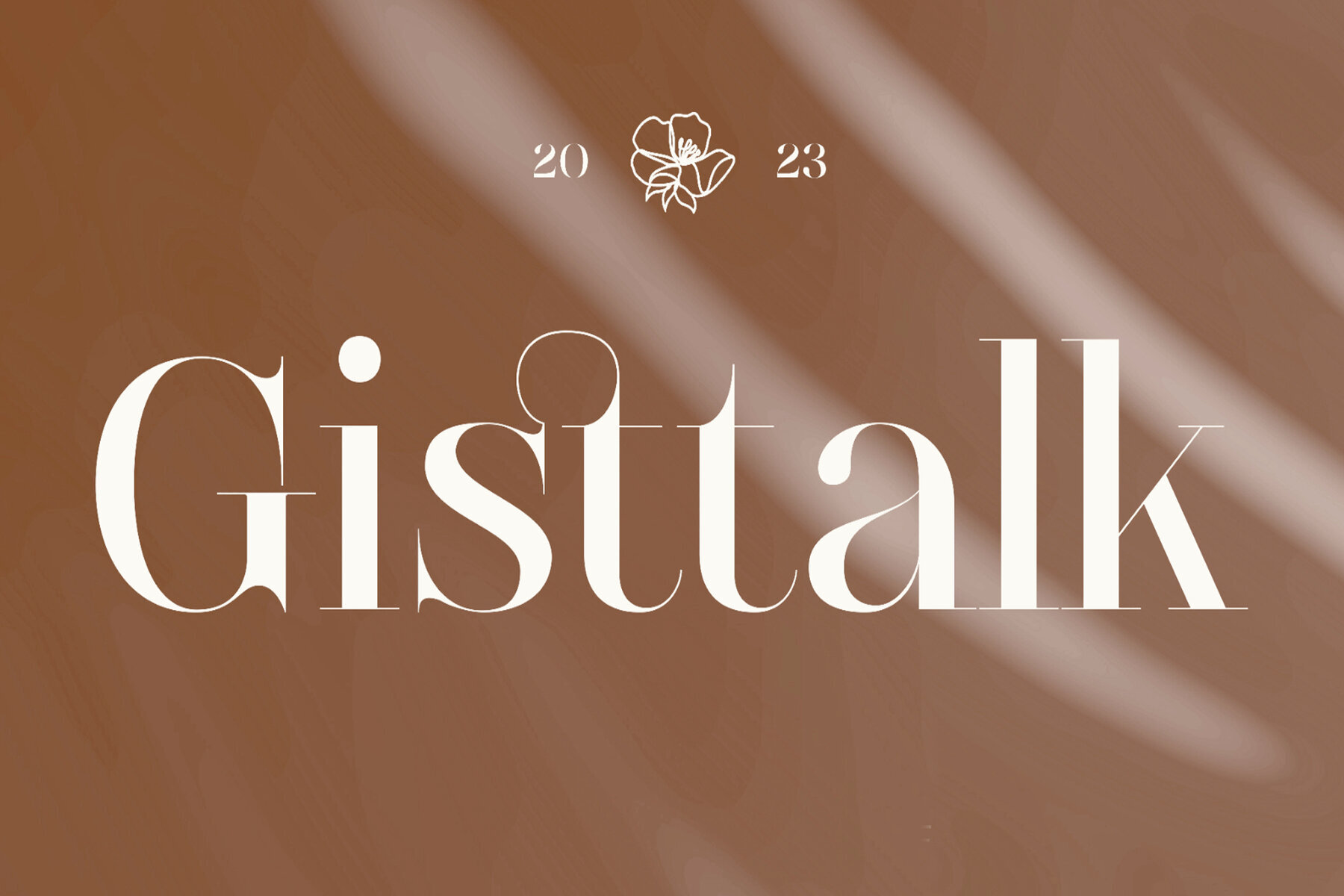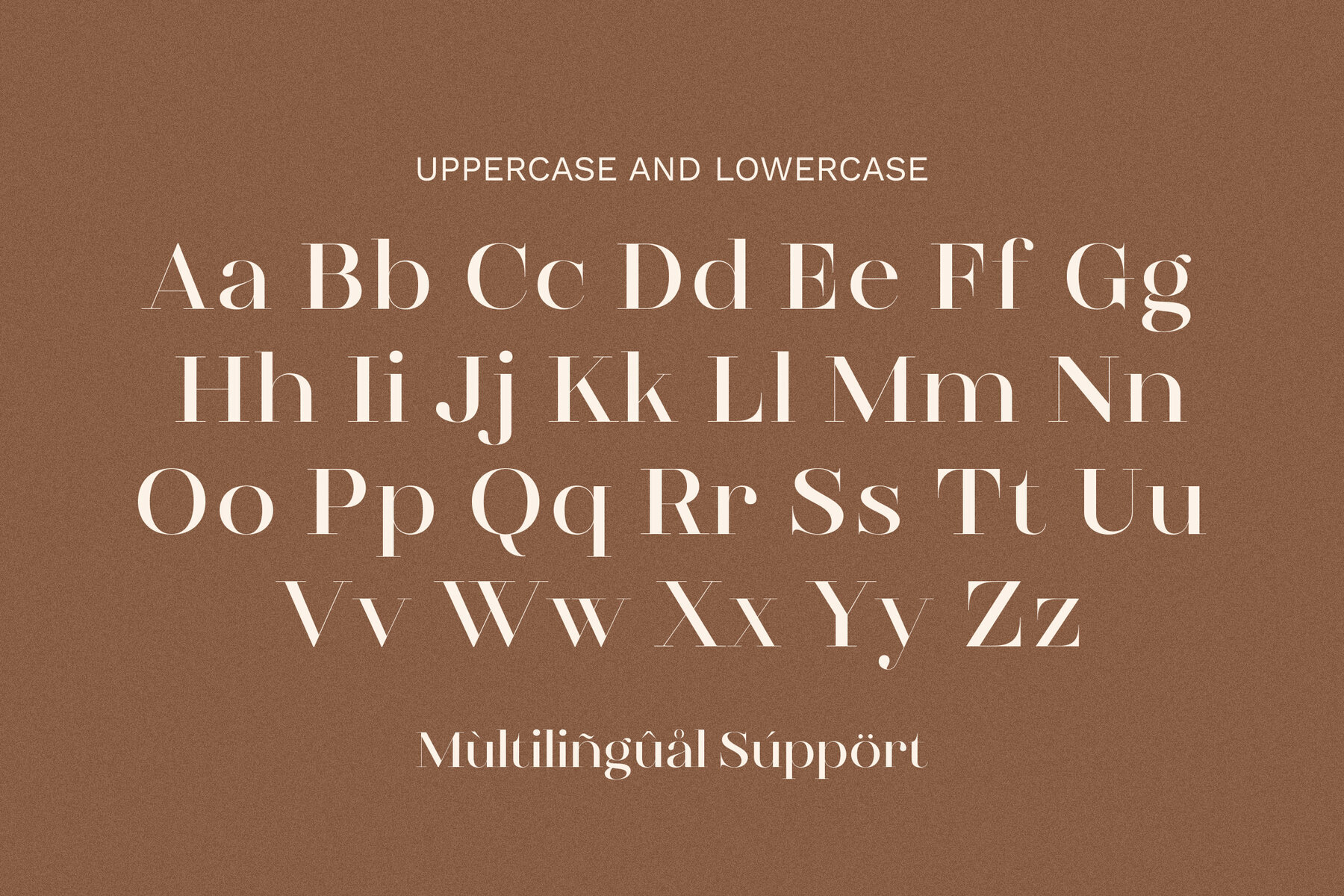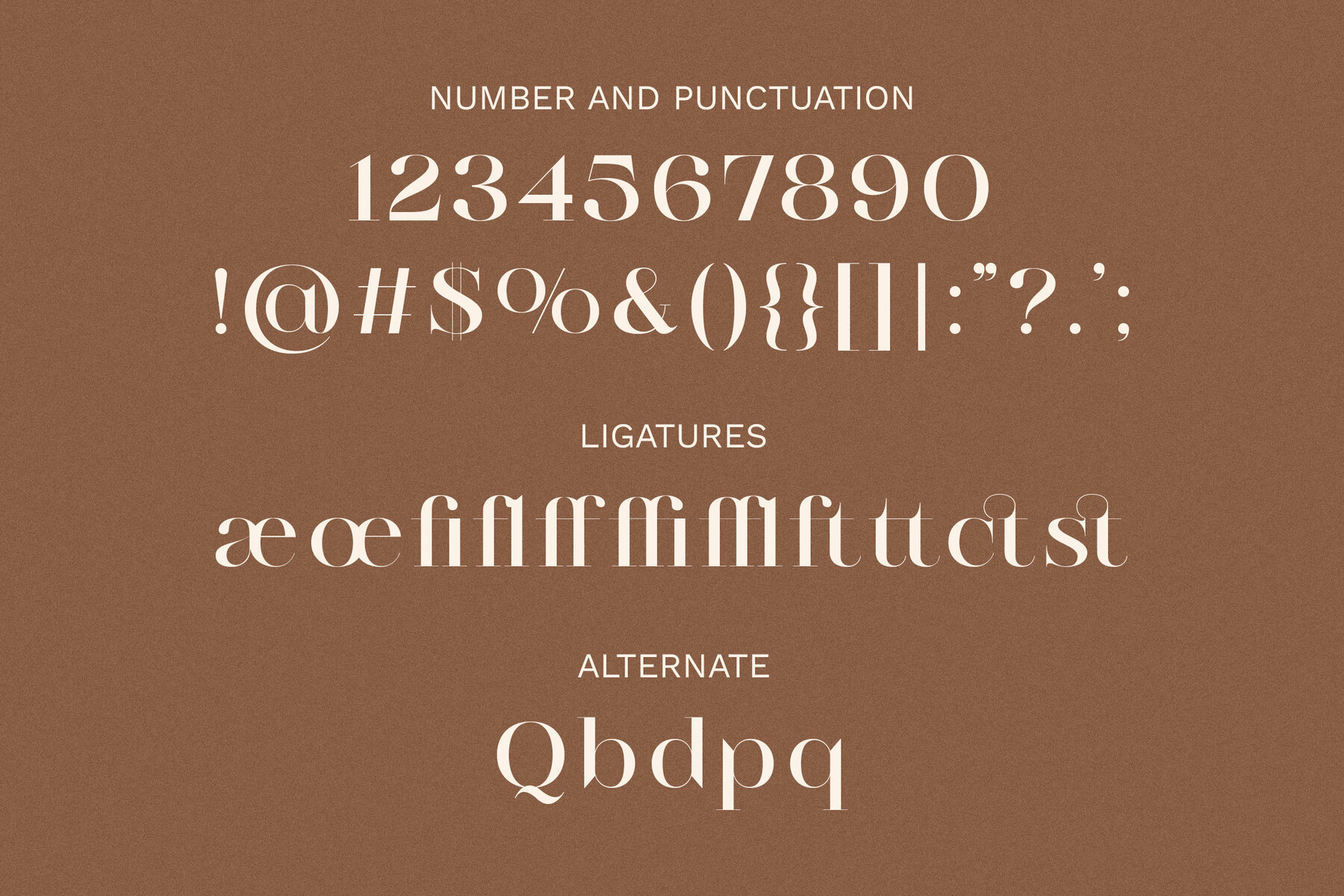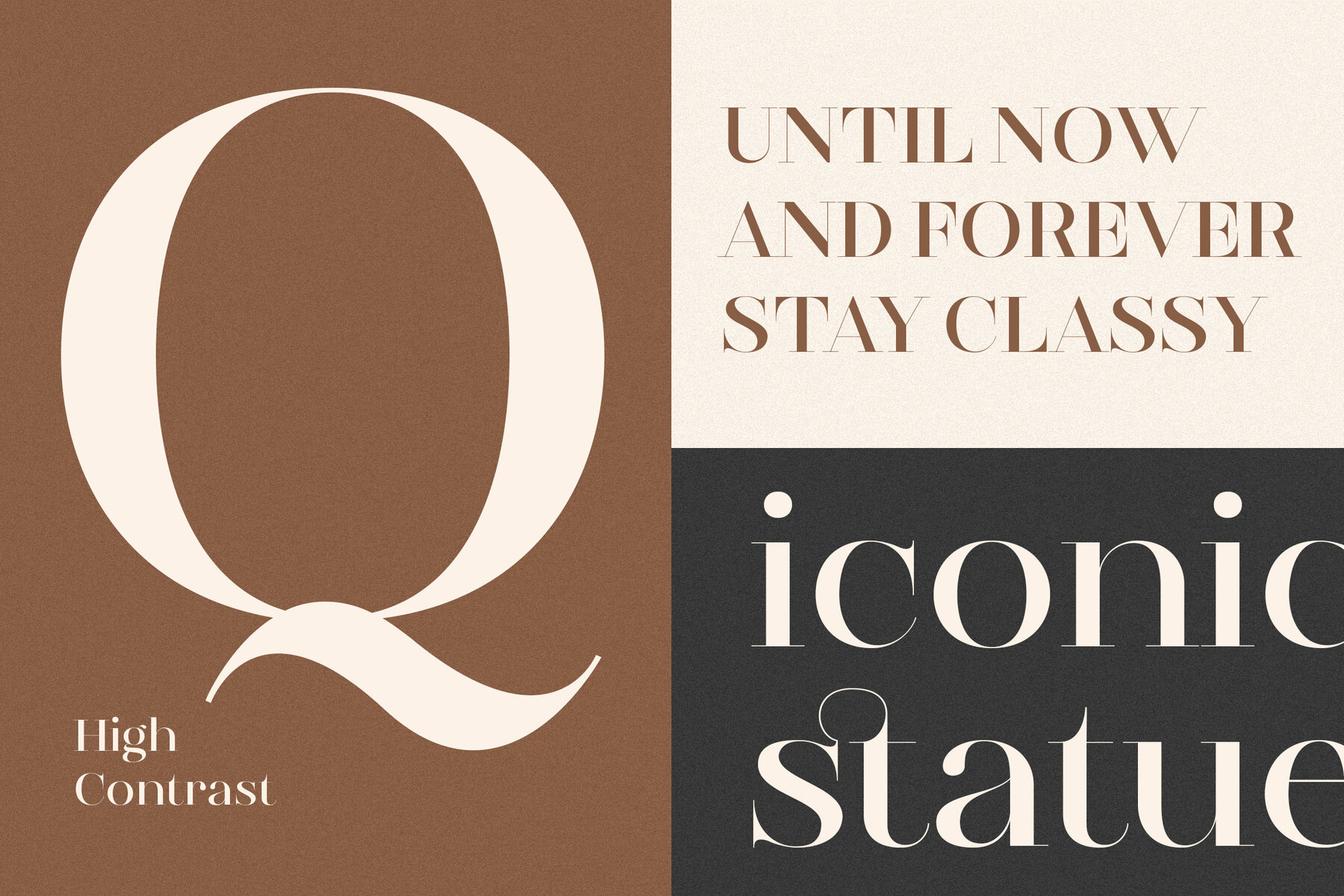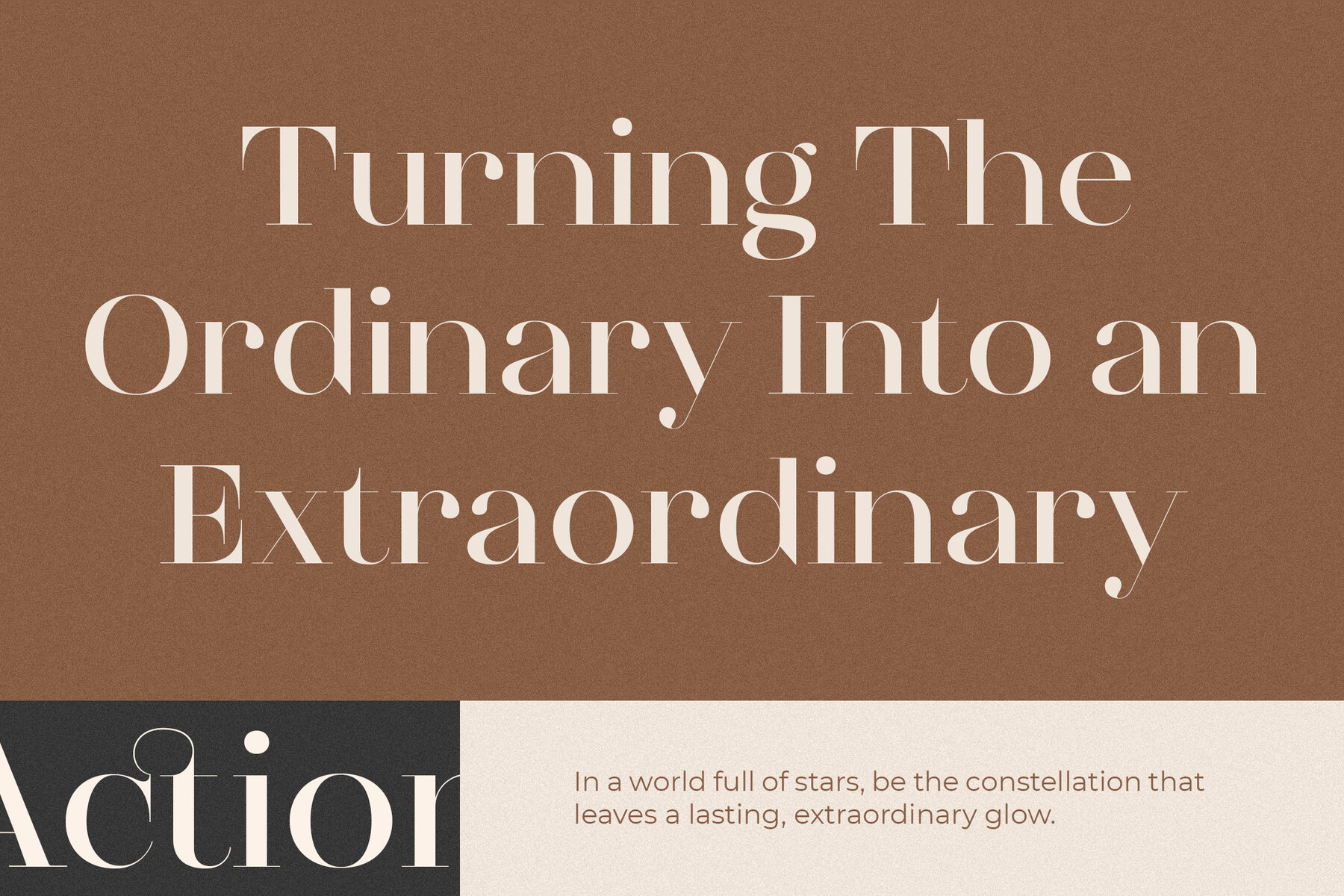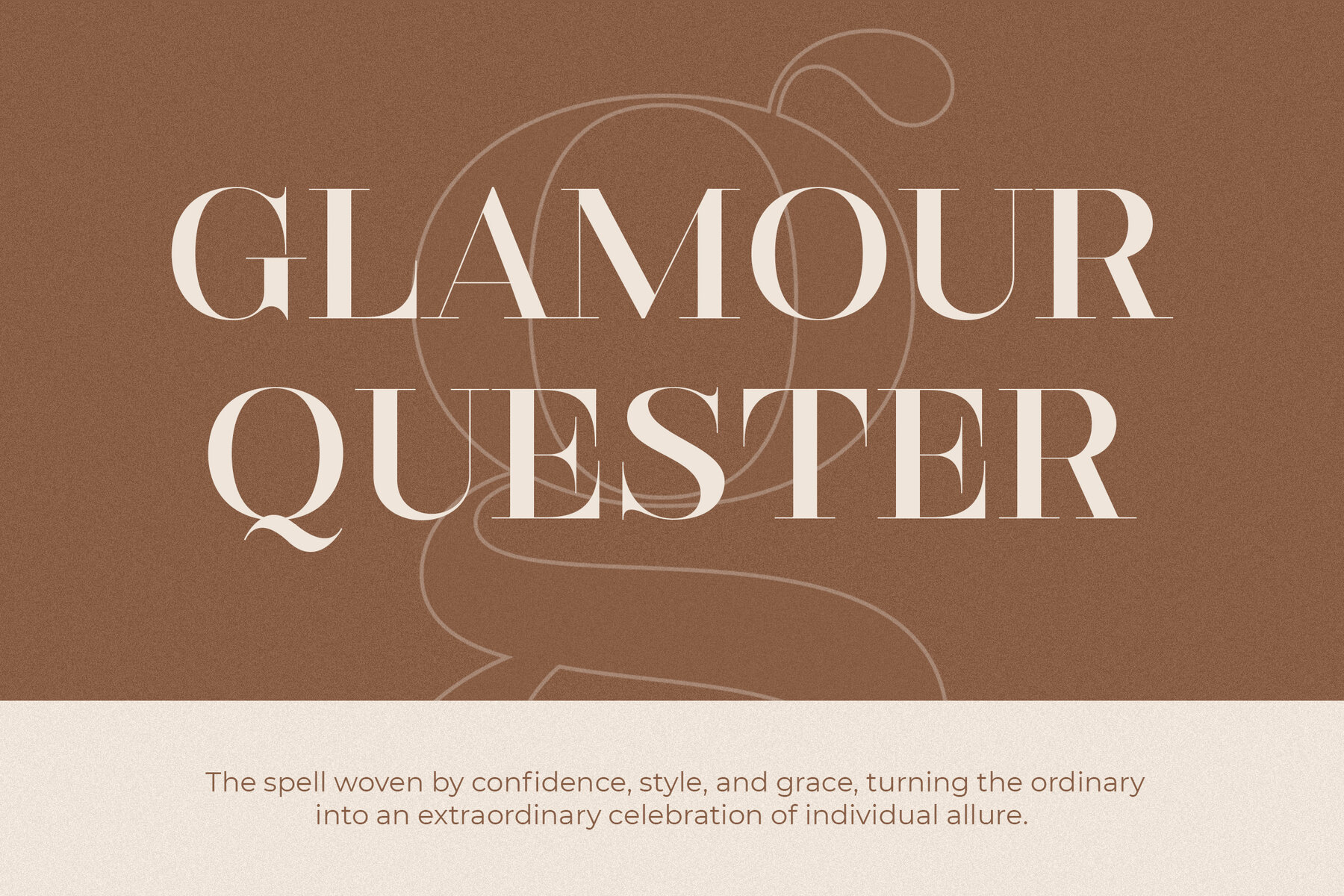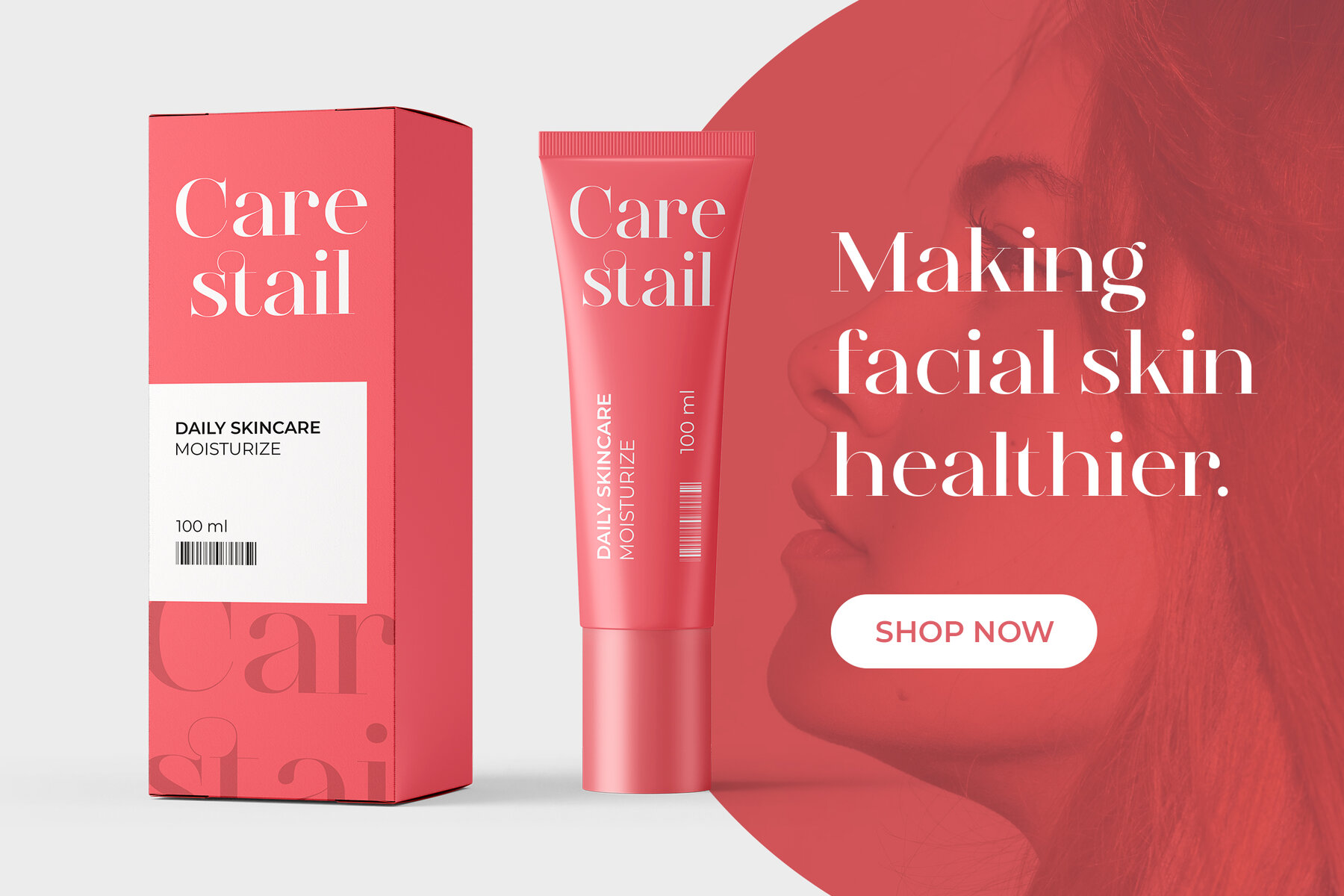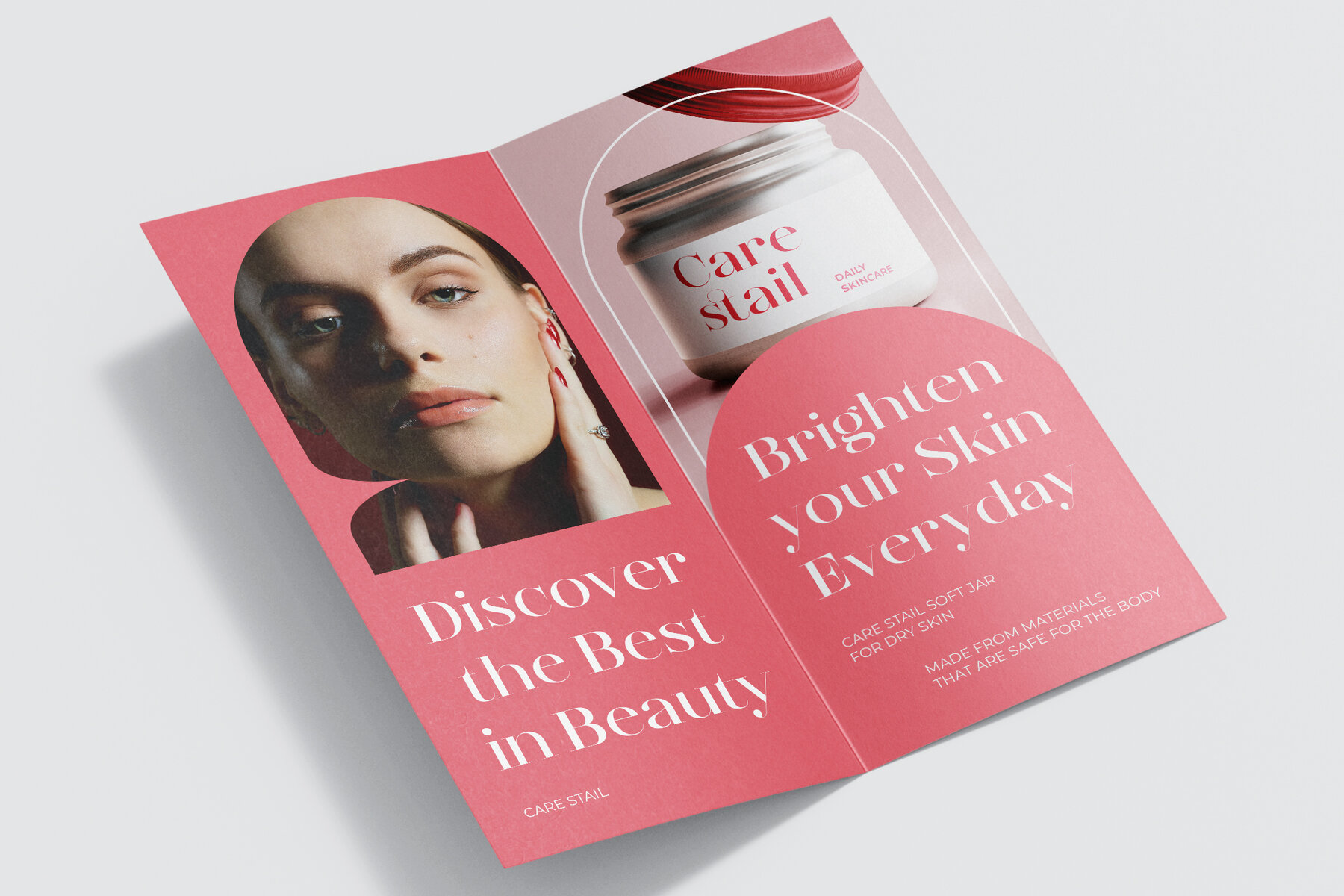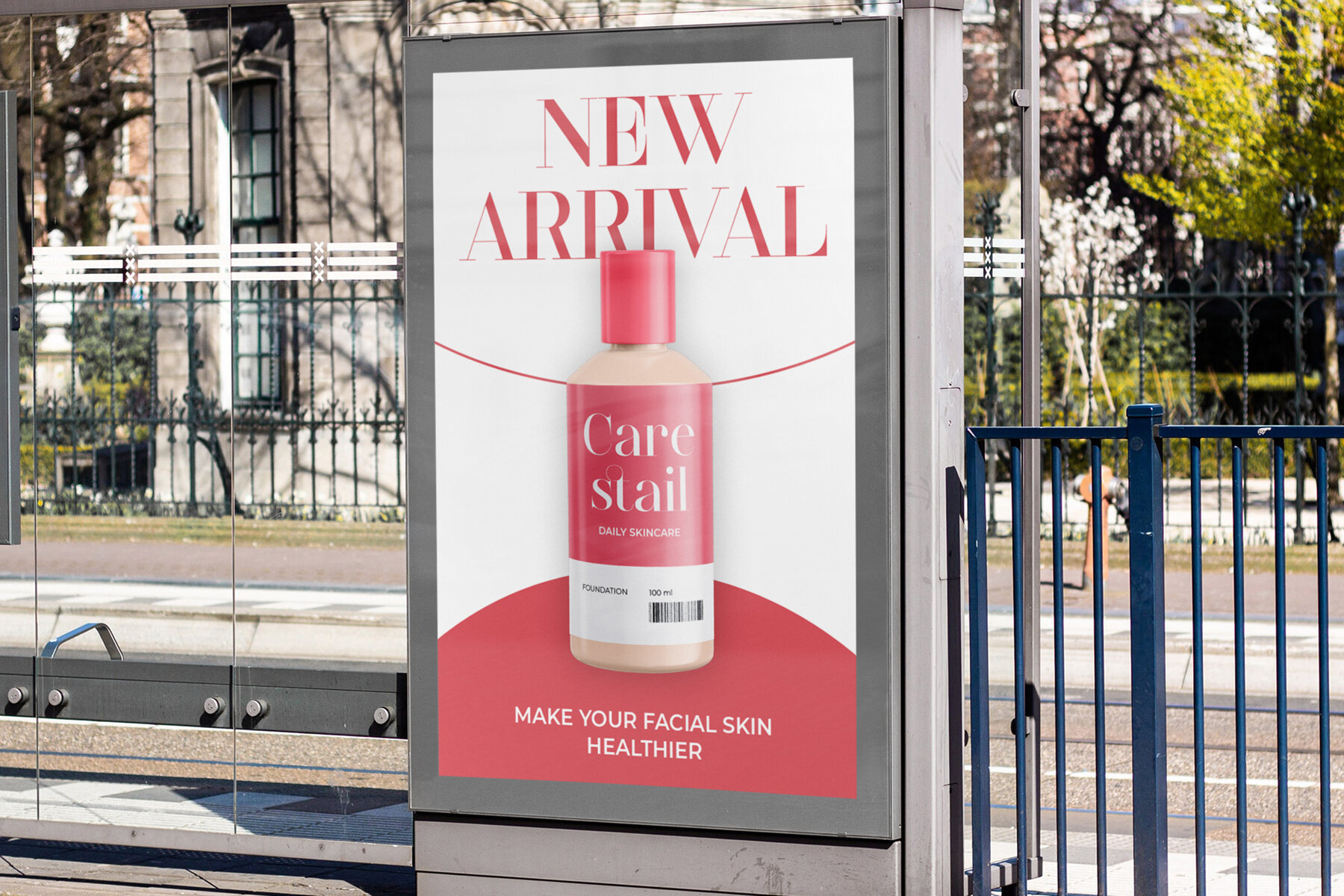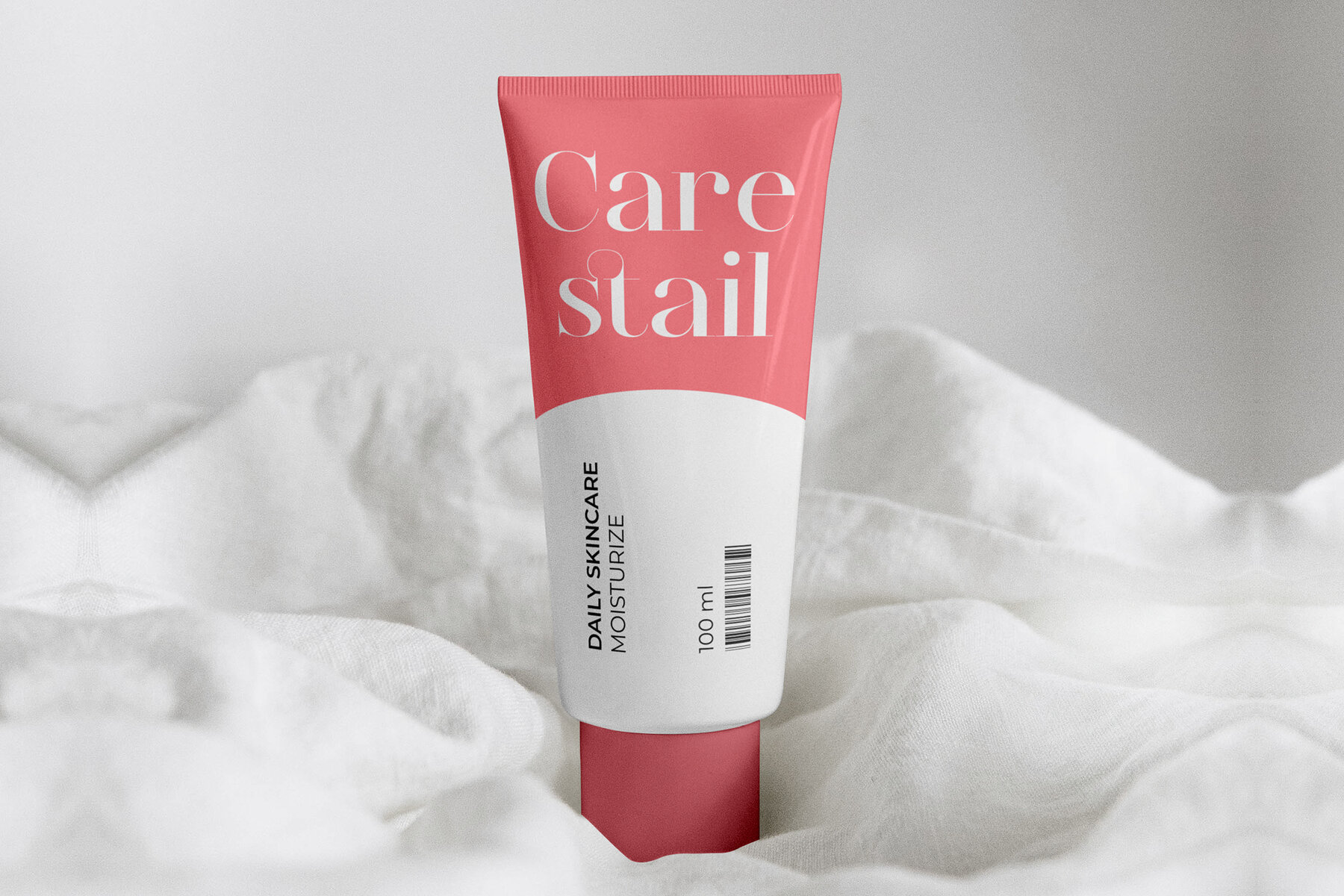
Gisttalk Font
Gisttalk Regular
Gisttalk showcases sophistication with its elegant luxury serif style. Designed to elevate any design, it offers a timeless appeal and refined details, making it the perfect choice for projects seeking a touch of class. The carefully crafted ligatures enhance its visual appeal, establishing Gisttalk as a font choice for those who appreciate the artistry of typography.Gisttalk by Typia Nesia Std: Elegance and Luxury Serif Font
Applications of Gisttalk